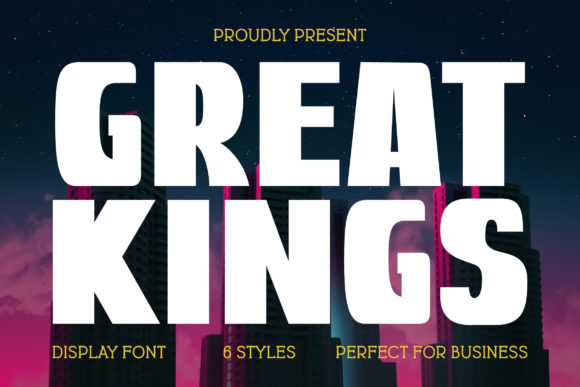
Journey into the realm of Great Kings Font, a display font that captivates with its bold, thick letters. Inspired by the dreams of children, this font is a playful masterpiece that brings stories to life. Each character dances across the page with a mischievous grin, inviting young readers to embark on enchanting adventures.
With Great Kings Font, transform ordinary text into captivating tales. Its playful curves and energetic strokes create a whimsical ambiance that engages children's imaginations. Let them explore the vibrant world of stories, where characters come alive and dreams take flight.
Great Kings Font is more than just a font; it's a passport to a world of boundless creativity. Its PUA encoding grants easy access to glyphs and swashes, empowering you to add a touch of magic to your designs. Unleash your imagination and let this font guide you through enchanting landscapes, where every word carries a spark of wonder.
Don't let your creations be ordinary; let them be extraordinary with Great Kings Font. Its bold presence commands attention, making it the perfect choice for book covers, posters, and any design that seeks to capture the imagination of children.
Dive into the realm of Great Kings Font and open the door to a world where stories come alive. Let your creativity soar as you create designs that spark curiosity, ignite imaginations, and leave lasting impressions. Embrace the magic of Great Kings Font and embark on a creative journey like no other.